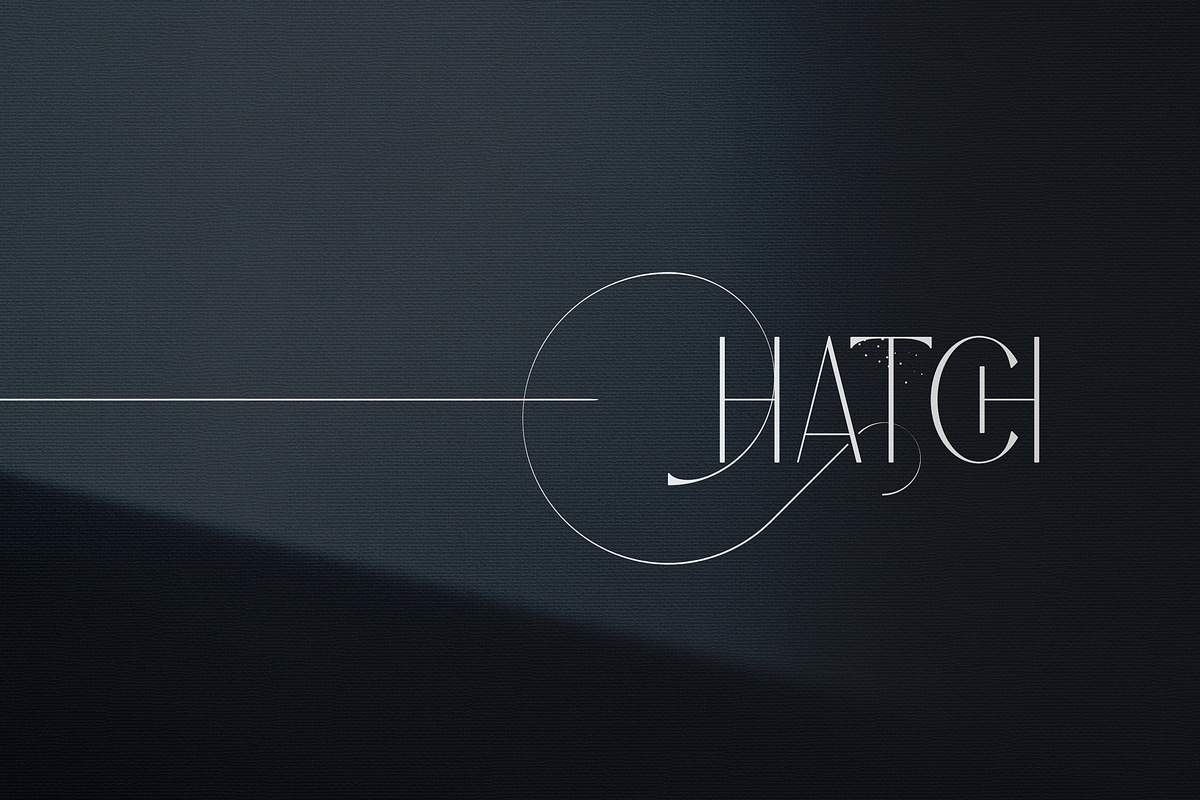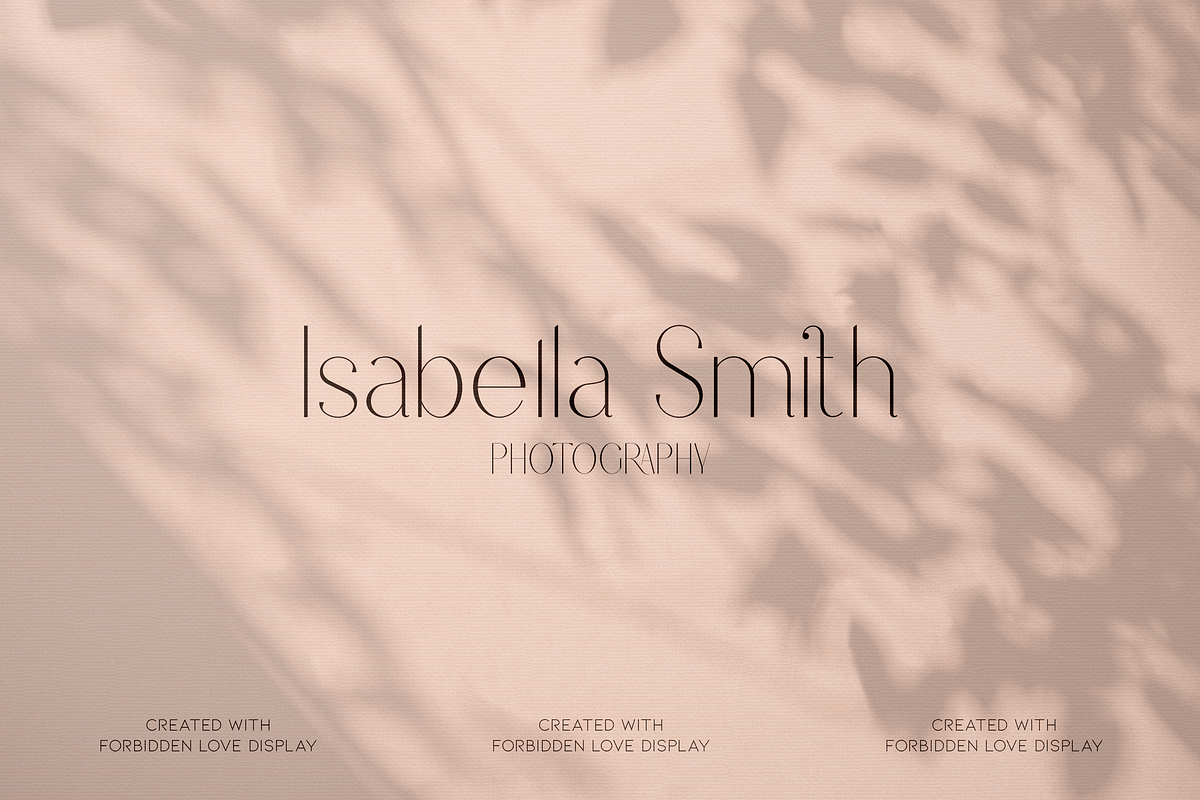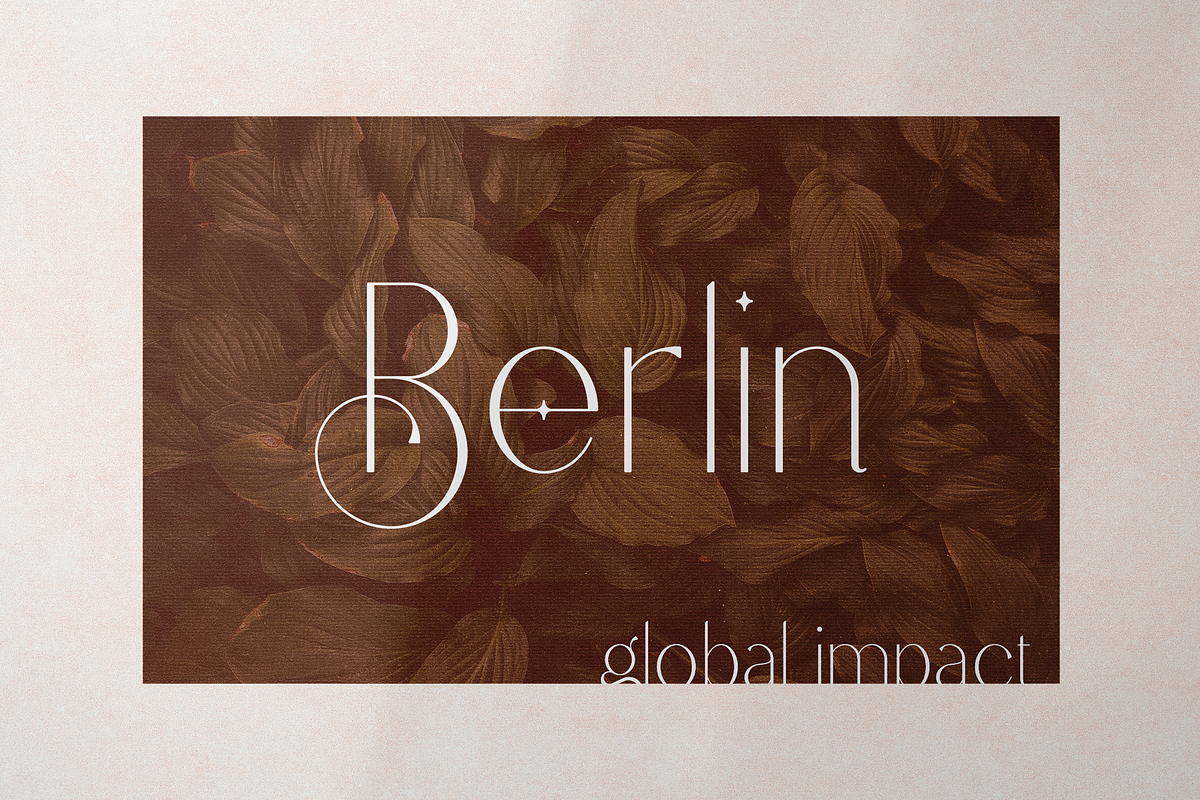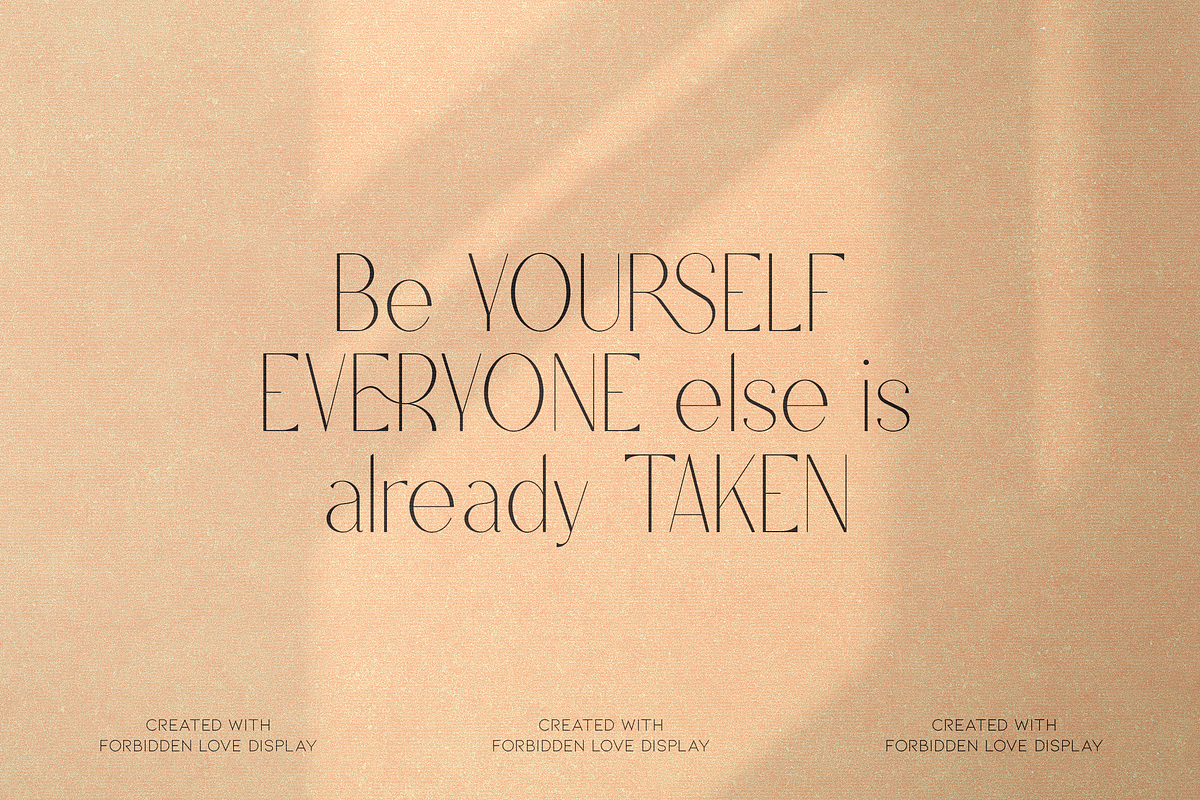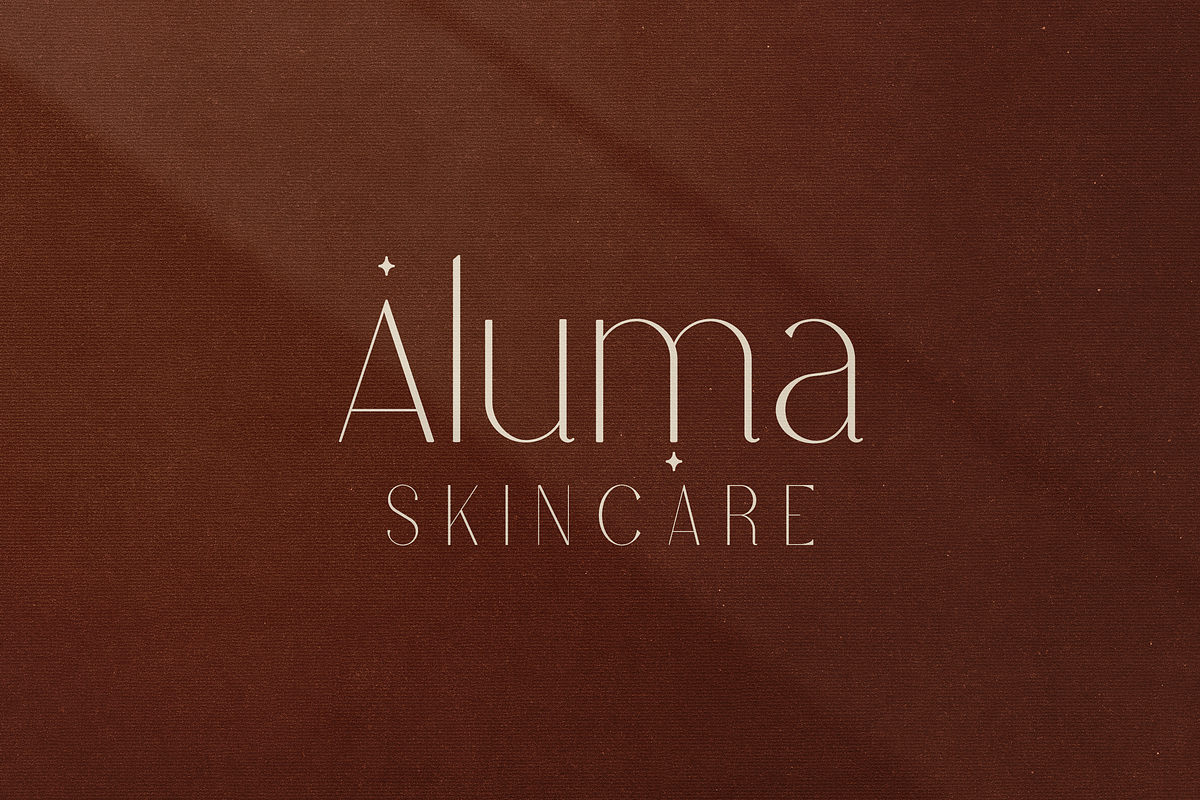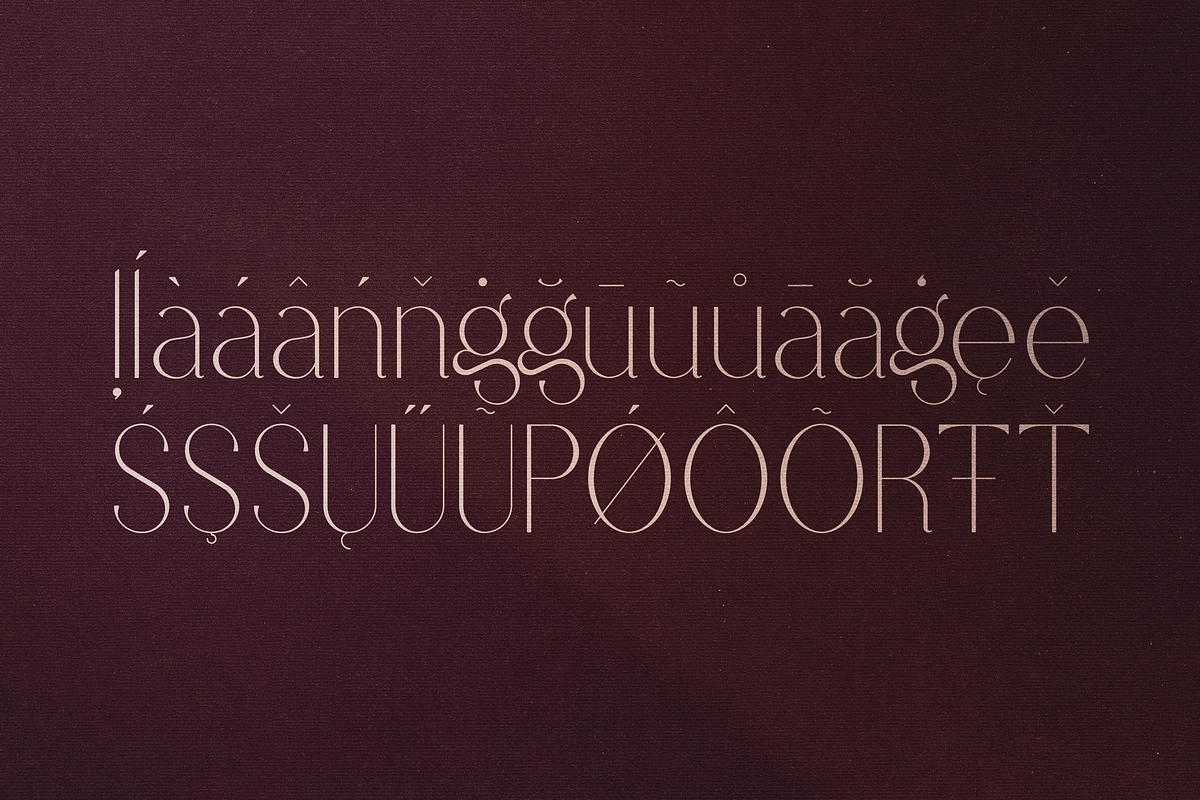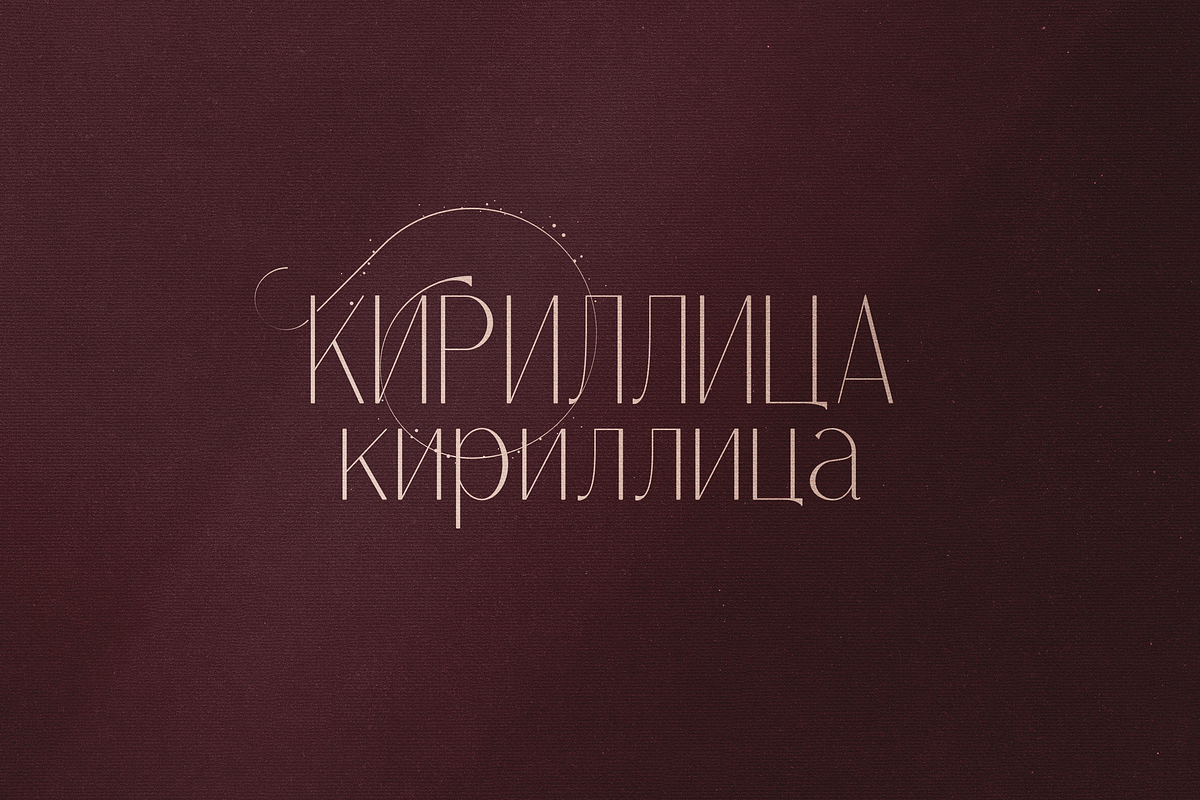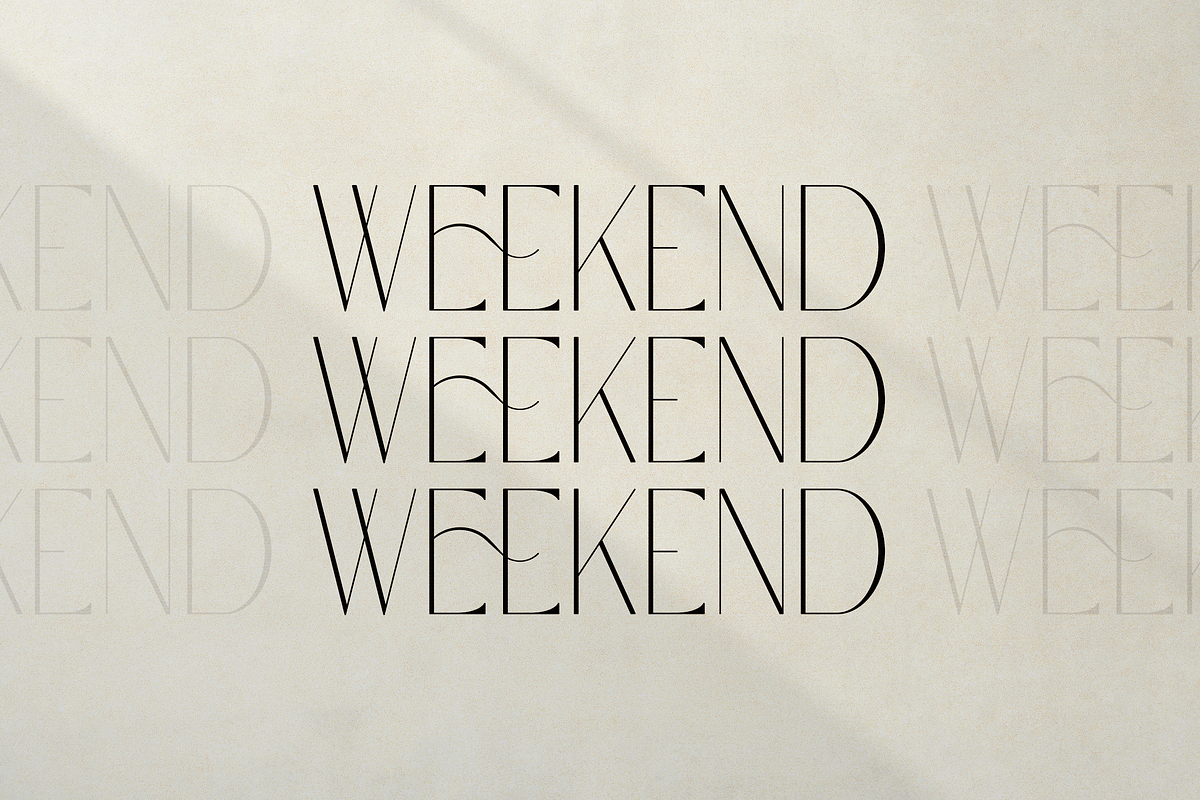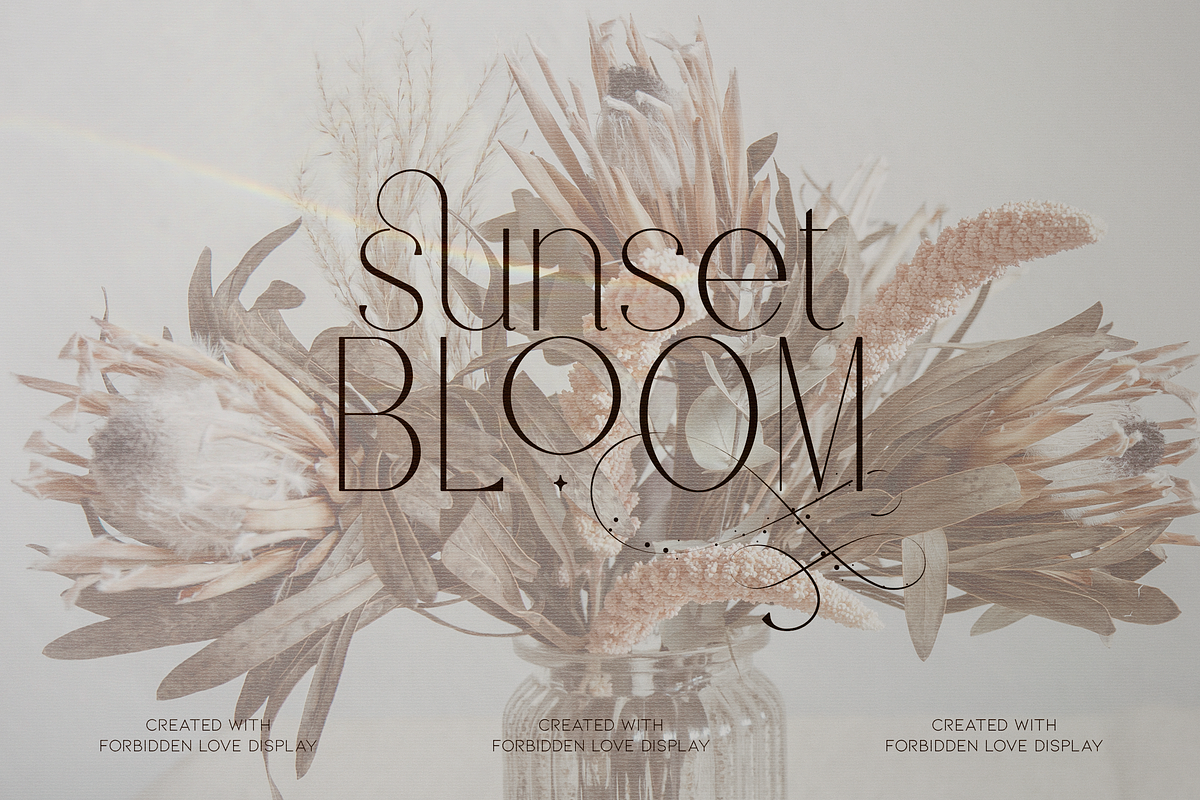
Forbidden Love - Display Font
Introducing Forbidden Love - Display font | Latin & Cyrillic
Forbidden Love is stylish and creative font loaded with alternate and ligature glyphs, 95 languages support to make you typography truly unique!
Language Support : Belarusian, Bosnian, Bulgarian, Chechen, Macedonian, Russian, Serbian, Afrikaans, Albanian, Asu, Basque, Bemba, Bena, Breton, Chiga, Colognian, Cornish, Czech, Danish, Dutch, Embu, English, Estronian, Faroese, Filipino, Finnish, French, Friulian, Galician, Ganda, German, Gusii, Hungarian, Indonesian, Irish, Italian, Jola-Fonyi, Kabuverdianu, Kalenjin, Kamba, Kikuyu, Kinyarwadna, Litvian, Lithuanian, Lower Sorbian, Luo, Luxembourish, Luyia, Machame, Makhuwa-Meetoo, Makonde, Malagasy, Maltese, Manx, Meru, Morisyen, North Ndebele, Norwegian Bokm ål, Norwegian Nynorsk, Nyankole, Ormo, Polish, Portuguese, Quechua, Romanian, Romansh, Rombo, Rundi, Rwa, Samburu, Sango, Sangu, Scottish Gaelic, Sena, Shambala, Shona, Slovak, Soga, Somali, Spanish, Swahili, Swedish, Swiss German, Taita, Teso, Turkish, Ukrainian, Upper Sorbian, Uzbek (Latin), Volap ük, Vunjo, Walser, Welsh, Western Frisian, Zulu
- Uppercase, lowercase, numeral, punctuation & Symbol
- ligature glyphs
- alternates
- Multilingual support - 95 languages